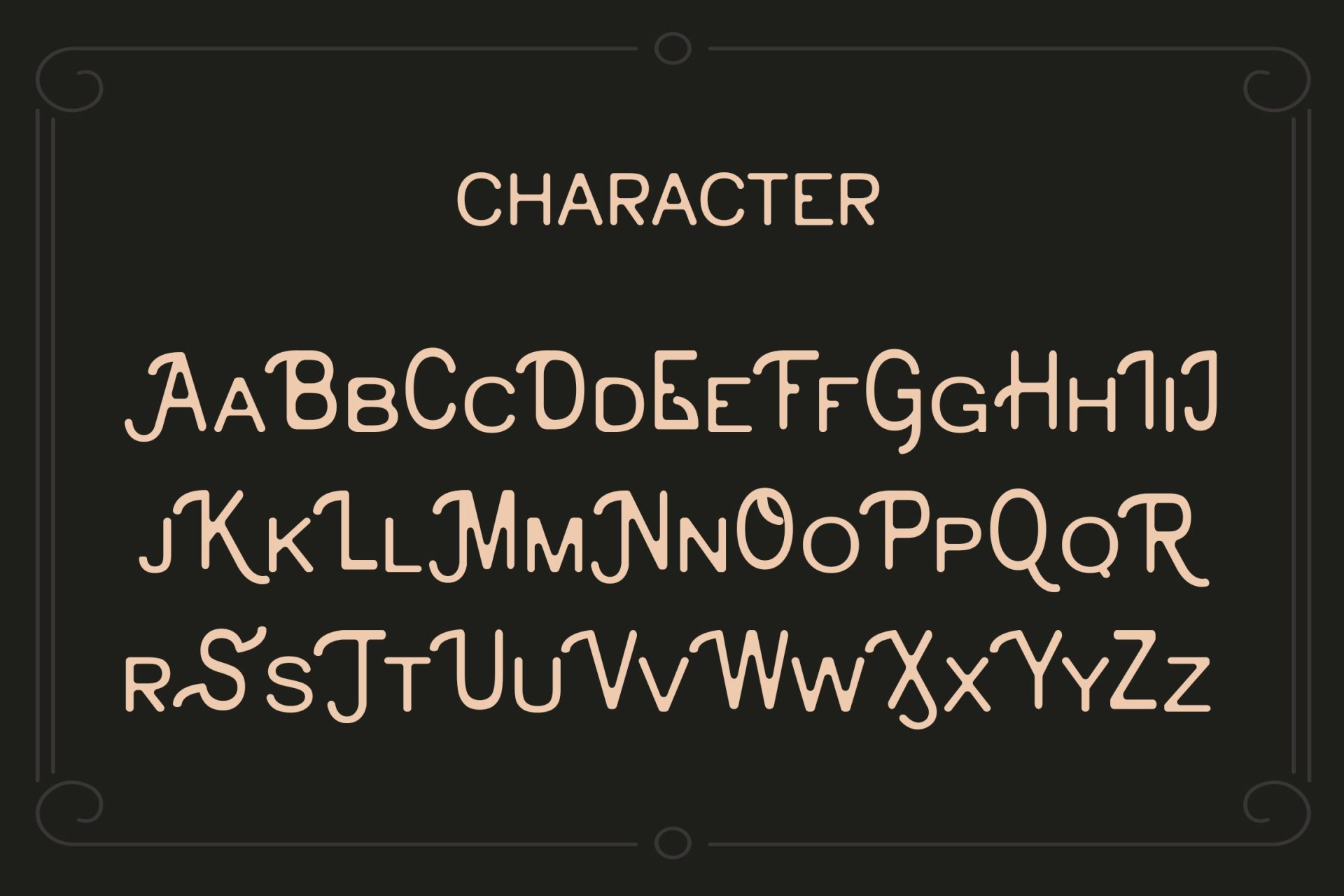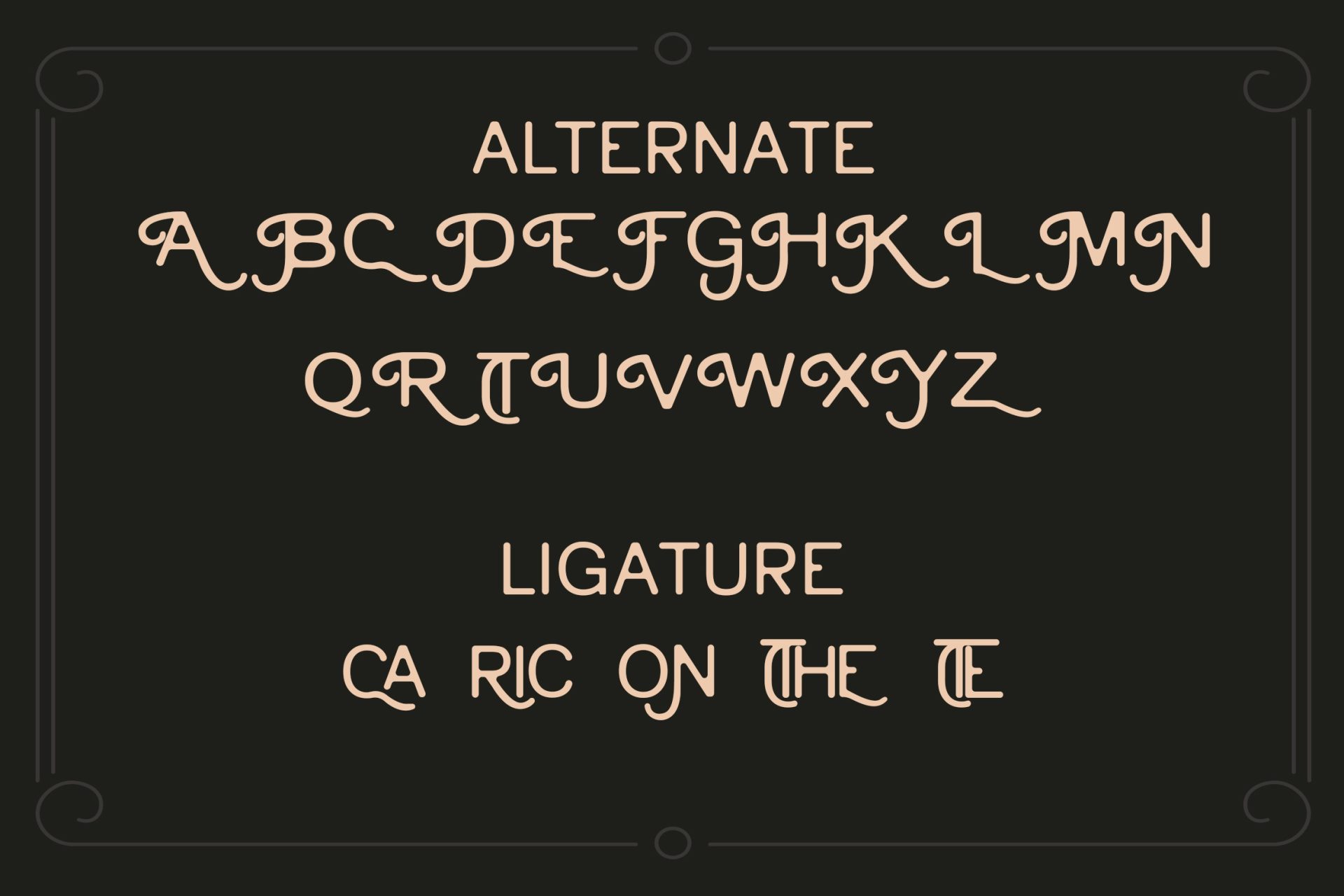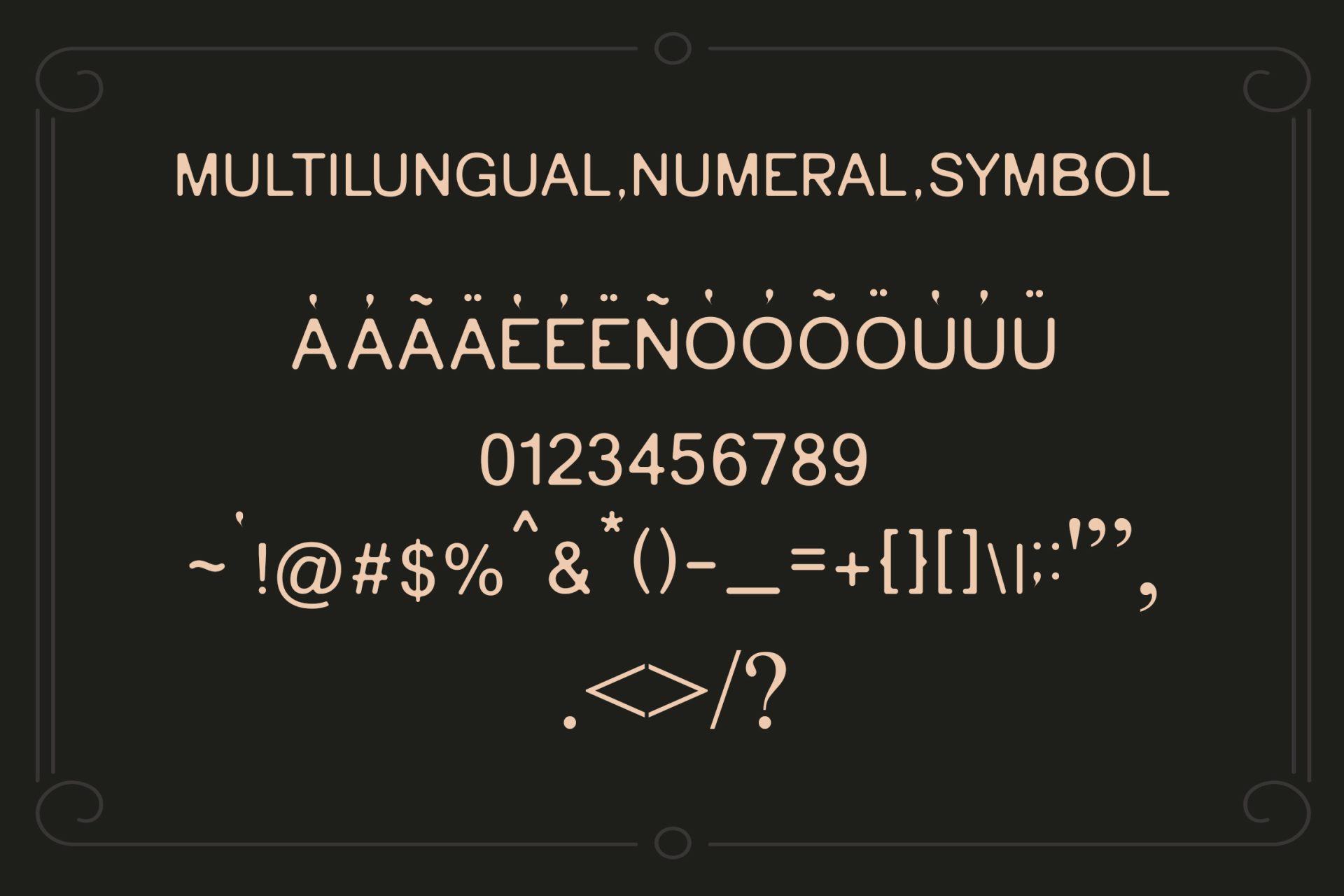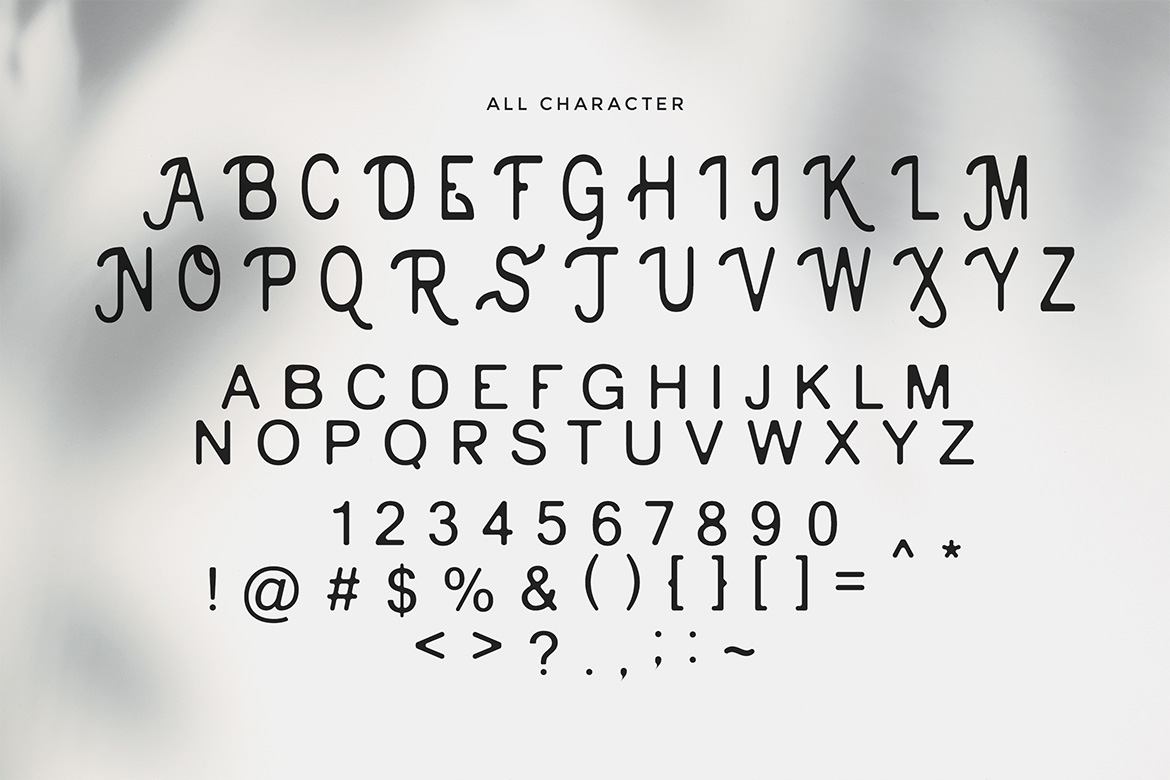
Introducing Cainamons – Vintage Font by KrakenBox
Cainamons is a vintage font. It has elegant, minimal, classy, and modern. It’s a great font for fashion, apparel projects, signature, album cover, logo, branding, magazine, social media, & advertisements, but also works great for other projects.